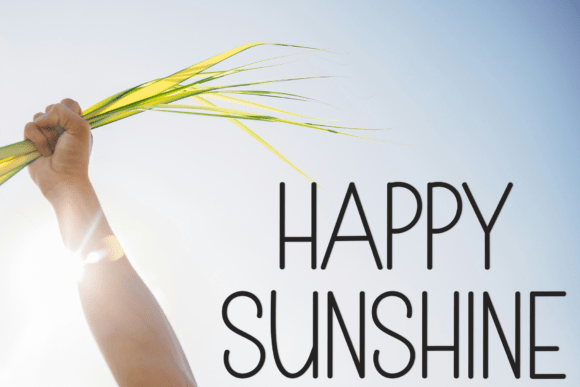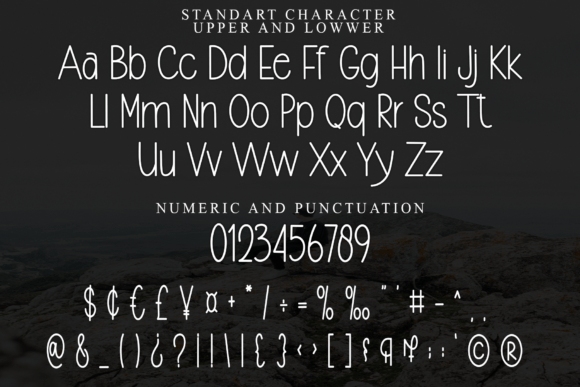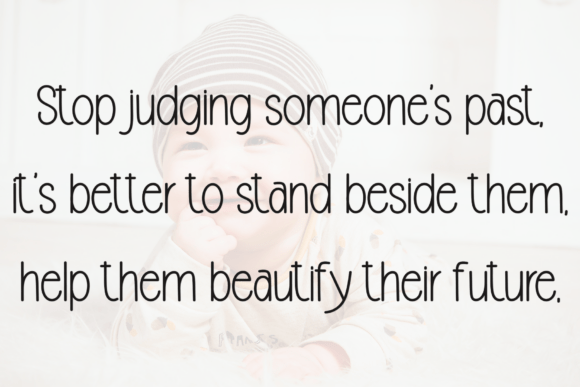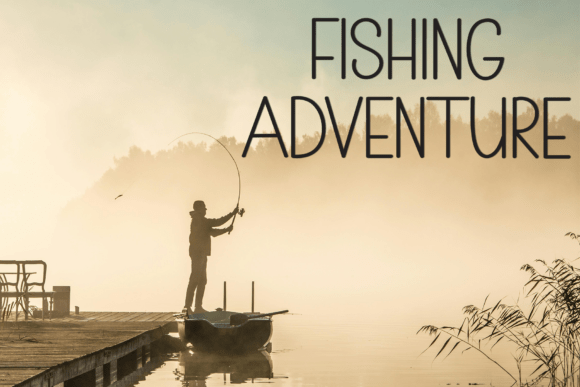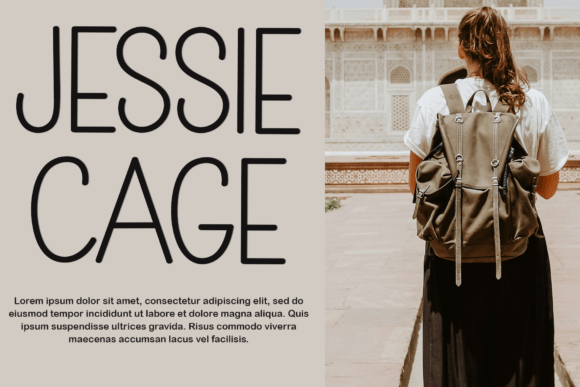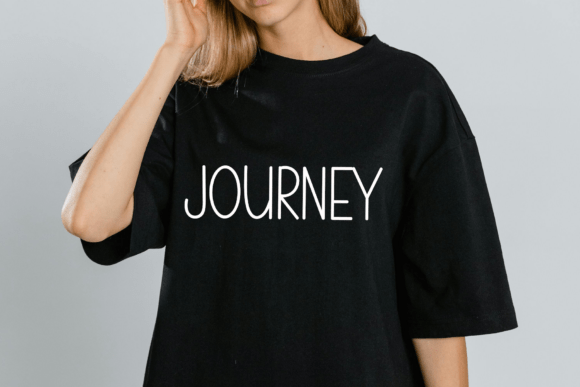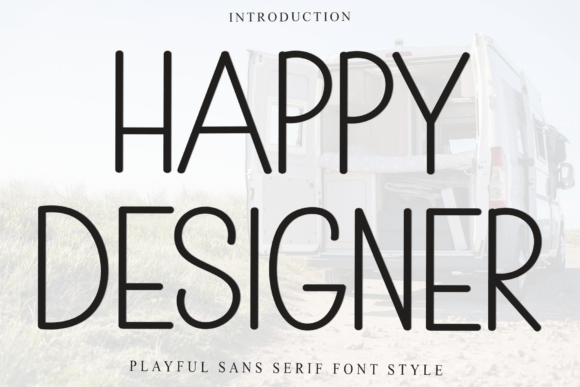
Introducing Happy Designer Font: The Perfect Blend of Casual and Creative
Are you tired of using the same old fonts for your personal projects, invitations, and social media graphics? Look no further than the Happy Designer Font! This charming, hand-drawn font is designed to bring a touch of warmth and friendliness to your designs, making it perfect for anyone looking to add a unique and playful twist to their work.
The Characteristics of Happy Designer Font
So, what makes Happy Designer Font so special? For starters, its round, playful strokes create a relaxed and approachable feel that’s hard to resist. The font’s casual and creative vibe makes it perfect for a wide range of design applications, from personal projects and invitations to social media graphics and more.
One of the standout features of Happy Designer Font is its charming, hand-drawn aesthetic. This font is not your standard, run-of-the-mill font – it’s been carefully crafted to add a fun and unique touch to any design. Whether you’re a designer, crafter, or simply someone who loves to get creative, Happy Designer Font is sure to become a favorite in your collection.
Technical Details: PUA Encoded Glyphs
But what really sets Happy Designer Font apart is its technical capabilities. This font is equipped with standard PUA Encoded glyphs, which are designed to work seamlessly with a wide range of application engines. Whether you’re using Adobe Photoshop, Corel, Adobe Illustrator, Canva, or many others, Happy Designer Font has got you covered.
PUA (Private Use Area) Encoded glyphs are a game-changer for designers and crafters. They allow for greater flexibility and creativity, making it easy to access and use a wide range of special characters and glyphs. With Happy Designer Font, you can unlock a world of design possibilities and take your work to the next level.
Happy Designer Font is a dream come true for designers and crafters. Whether you’re working on a personal project, creating invitations for a special occasion, or designing social media graphics for a client, this font is sure to impress. Its unique and playful aesthetic makes it perfect for a wide range of design applications, from:
- Personal projects: Add a touch of personality to your designs with Happy Designer Font.
- Invitations: Create beautiful, one-of-a-kind invitations for weddings, parties, and more.
- Social media graphics: Stand out on social media with eye-catching graphics that showcase your creativity.
- Crafting projects: Add a personal touch to your crafting projects, from papercrafting to sewing and more.
Why Choose Happy Designer Font?
So, why choose Happy Designer Font over other fonts on the market? Here are just a few reasons:
- Unique and playful aesthetic: Happy Designer Font is unlike any other font on the market.
- Technical capabilities: With PUA Encoded glyphs, you can unlock a world of design possibilities.
- Flexibility: Happy Designer Font is perfect for a wide range of design applications.
- Easy to use: This font is designed to be user-friendly, making it easy to access and use.